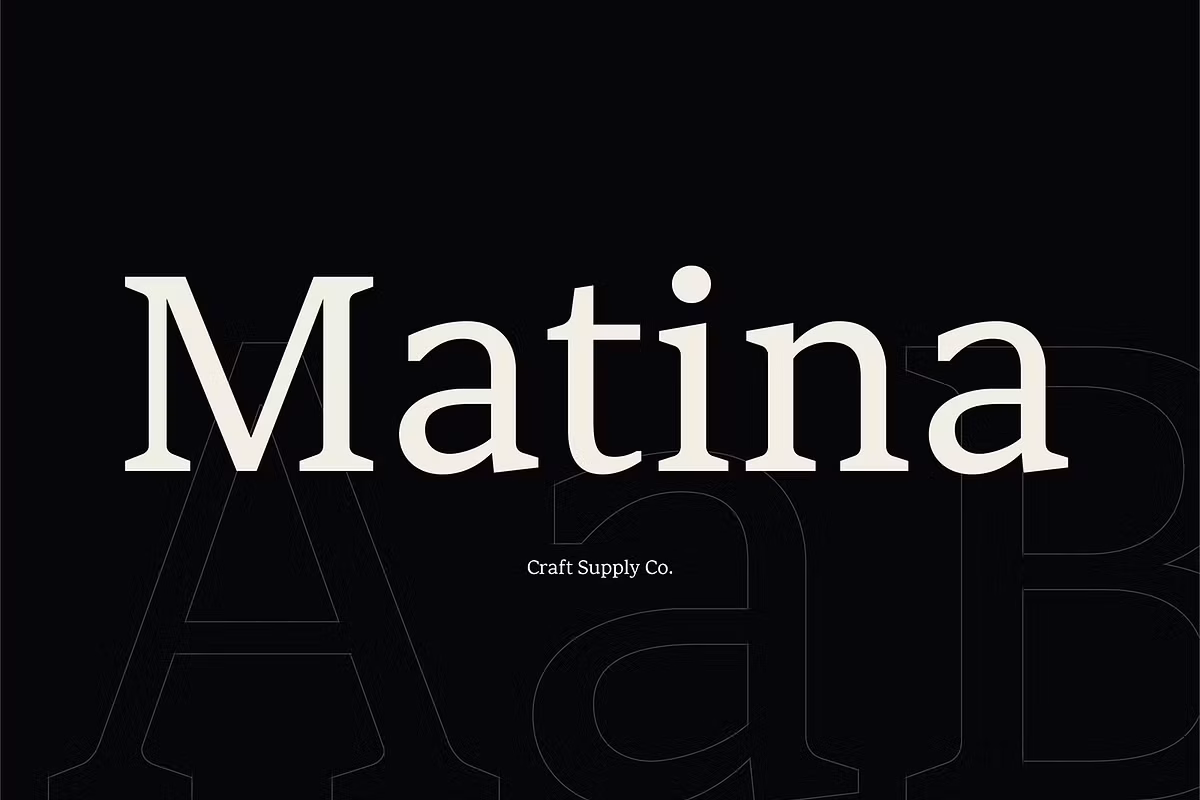
Matina Typeface Free Download is a modern and versatile font designed to bring a sleek and professional touch to your projects. With clean lines and balanced proportions, Matina is perfect for logos, branding, websites, and print materials. Its contemporary style and excellent readability make it suitable for both digital and print applications, ensuring your designs look polished and sophisticated.